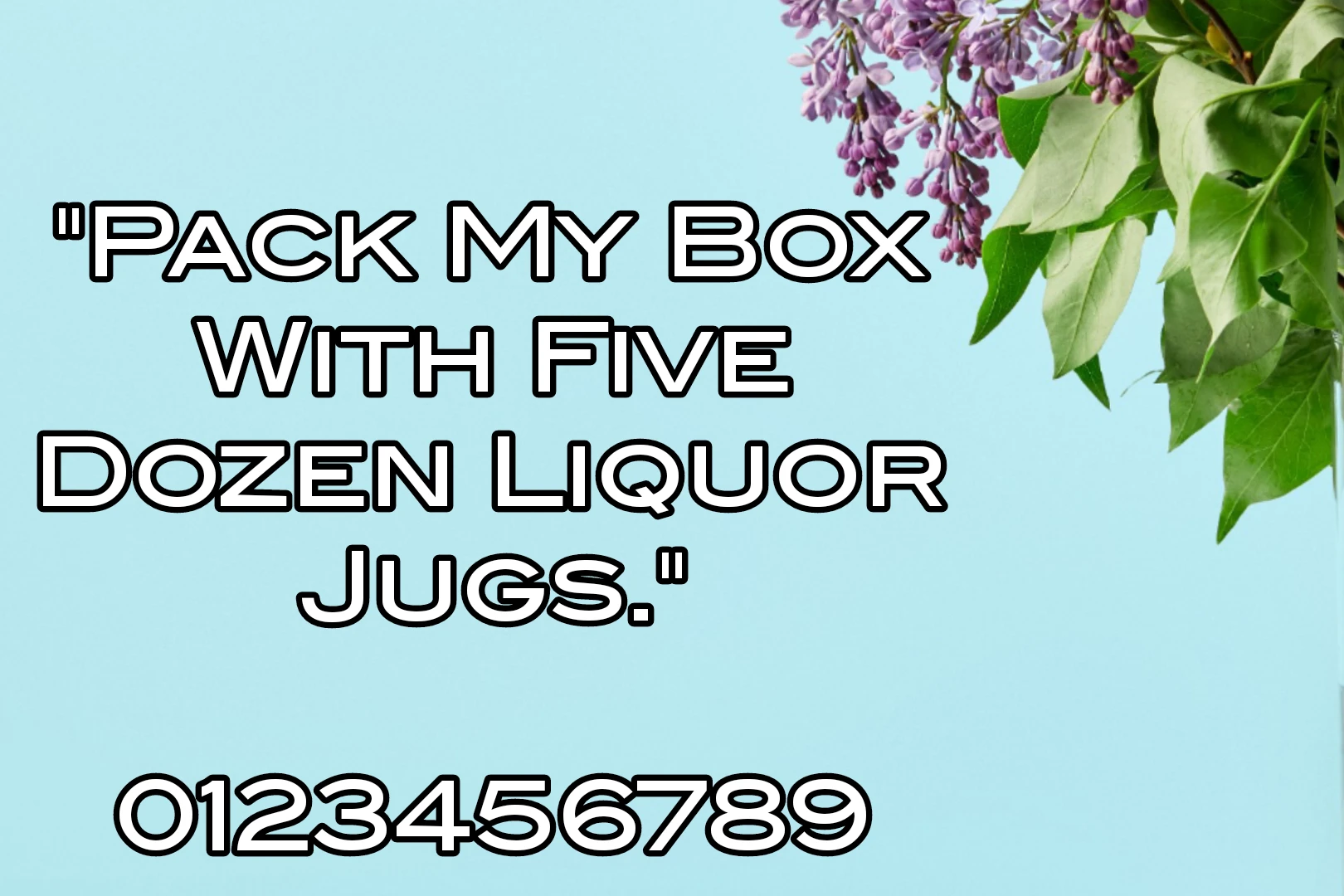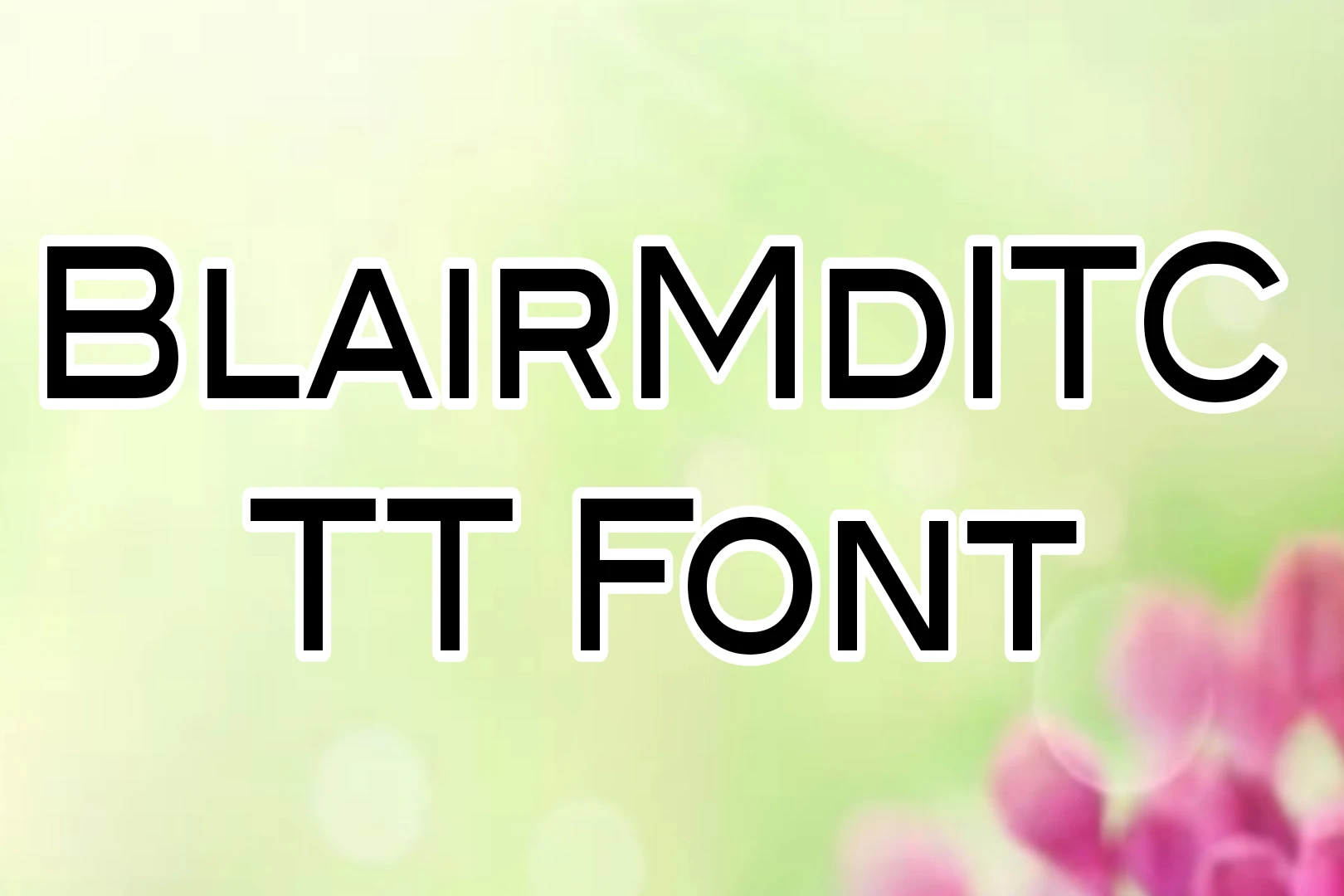
Uses of Blairmditc TT Font
It is a unique and stylish typeface that can be used in a variety of design projects. It has a modern and edgy feel, making it suitable for use in branding, advertising, and marketing materials. The font is also popular for use in editorial design, such as in magazines, newspapers, and books, as well as in web design, where it can add a touch of personality and flair to a website.
Additionally, it is often used in packaging design, particularly for products that want to convey a sense of sophistication and elegance. With its bold and distinctive lettering, this font is a versatile and eye-catching font that can be used in a wide range of design applications.
In the entertainment industry, you can use movie posters, album covers, and other promotional materials to create a sense of excitement and intrigue. Overall, the versatility of this Font makes it a great choice for designers who are looking to add a touch of style and personality to their projects, regardless of the industry they are working in.
Blairmditc TT Font View
What is Blairmditc TT Font?
This font is a typeface that was designed by American typographer and graphic designer, Tobias Frere-Jones. It is a sans-serif font that was created in 2007.
Who designed Blairmditc TT Font?
Blairmditc TT Font was designed by Tobias Frere-Jones, a renowned typographer and graphic designer who has received numerous awards and accolades for his work.
What is the style of Blairmditc TT Font?
It is characterized by its bold lettering and sharp edges, giving it a modern and contemporary feel. It is a versatile and stylish font that can be used in a variety of design projects.
What industries is Blairmditc TT Font suited for?
This typeface is well-suited for a variety of industries, including fashion, beauty, technology, and entertainment.
What are the benefits of using Blairmditc TT Font?
You can create a unique and memorable visual identity for a product, service, or brand. It is also versatile and easy to read, making it a great choice for a variety of design projects.
Is Blairmditc TT Font a popular typeface?
Yes, This Font has gained popularity over the years for its unique and edgy design, making it a popular choice for designers in a variety of fields.
What other typefaces has Tobias Frere-Jones designed?
Tobias Frere-Jones has designed a wide range of typefaces throughout his career, including Gotham, Interstate, and Whitney.
Can Blairmditc TT Font be used for web design?
Yes, You can be used in web design, as it is legible and easy to read on digital screens.